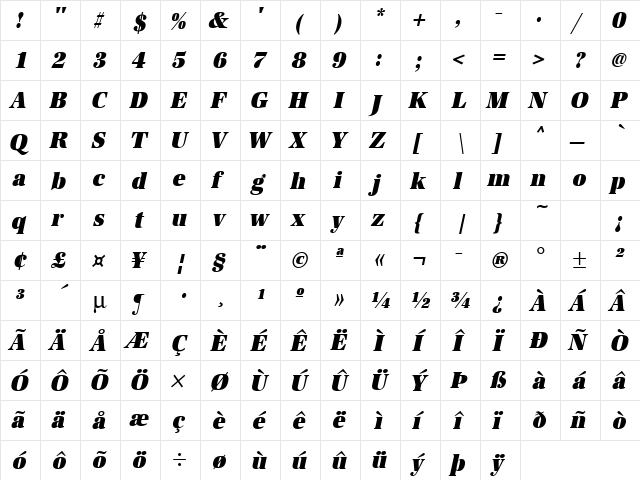
URWAntiquaTUltBolExtNar Oblique
Design Context for URWAntiquaTUltBolExtNar Typeface
URWAntiquaTUltBolExtNar is a composed and adaptable typeface that performs quietly and consistently across a wide range of design contexts. The dynamic lean of this cut emphasises speed and emphasis in any layout.
Pro Tip: Use URWAntiquaTUltBolExtNar for emphasis, pull quotes, and subheadings where its slanted energy can add rhythm to the layout.